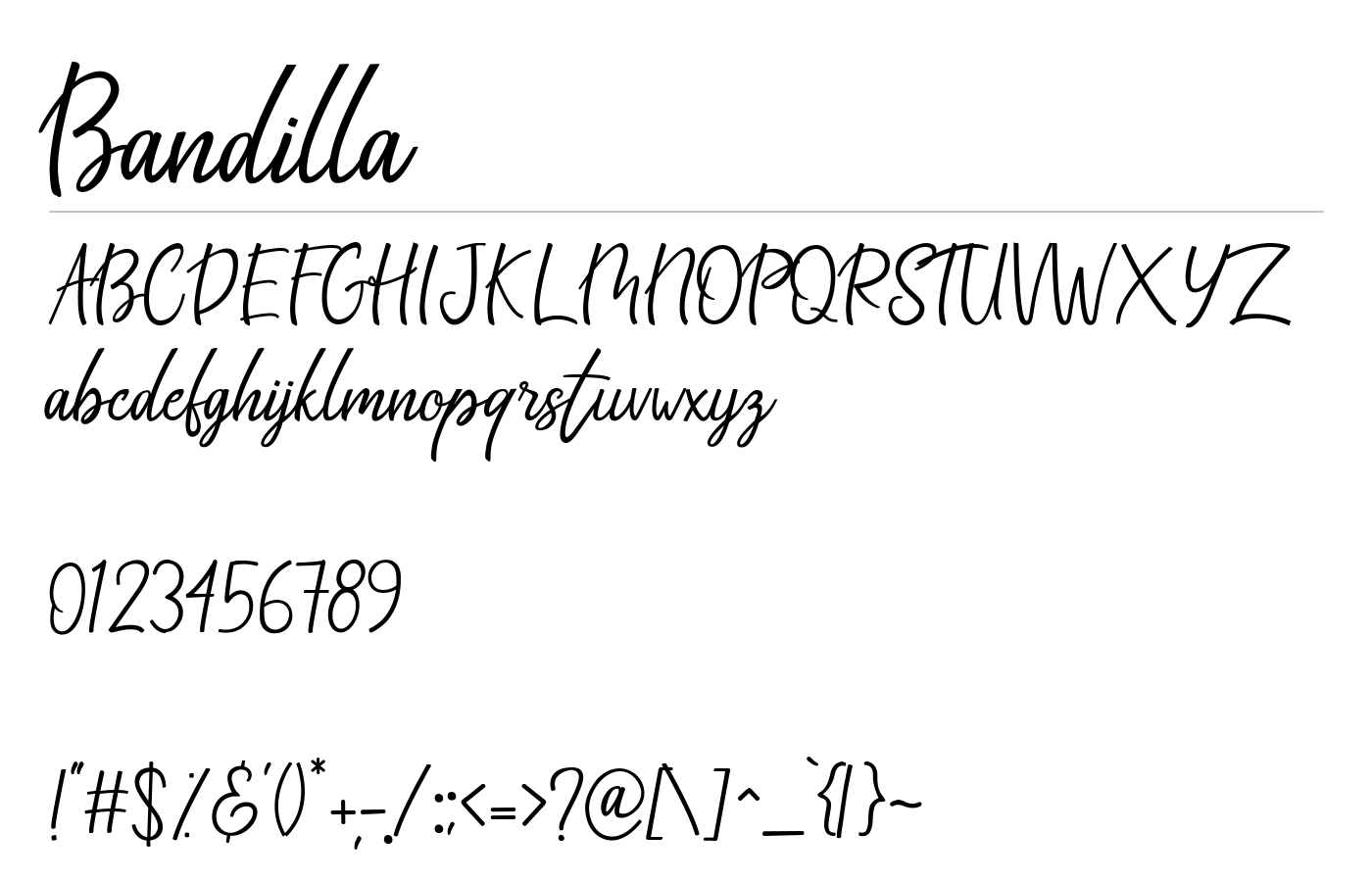
Bandilla is a stylish script font with a smooth, handwritten feel that combines elegance and modern charm. Its slender, flowing strokes and subtle variations in width make it perfect for creating inviting and sophisticated designs, ideal for branding, invitations, and expressive headlines. This font adds a personal, artistic touch while maintaining clarity and readability.
Bandilla Font